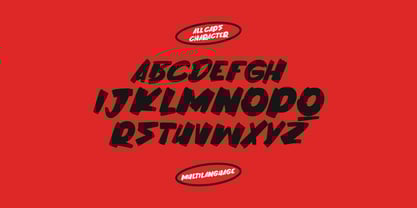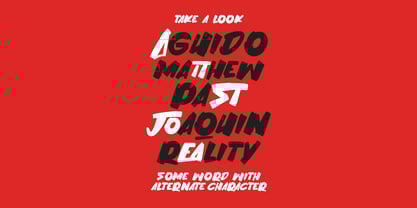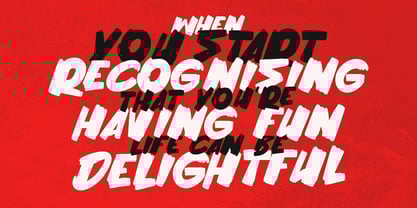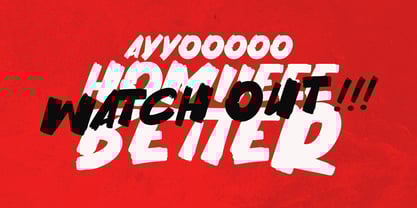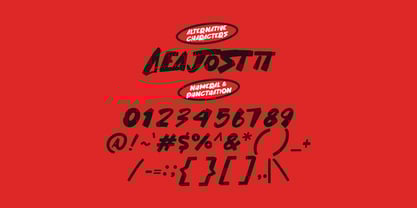
MC Easto Coma
by Maulana Creative
The MC Easto Coma Font Family was designed by Gilang Maulana and published by Maulana Creative. MC Easto Coma contains 1 styles. More about this family
Easto Coma is a brush display handwritten font. With bold stroke, fun character with a bit of ligatures and alternates. To give you an extra creative work. Easto Coma font support multilingual more than 100+ language. This font is good for logo design, Social media, Movie Titles, Books Titles, a short text even a long text letter and good for your secondary text font with sans or serif. Make a stunning work with Easto Coma font.
Designers: Gilang Maulana
Foundry: Maulana Creative